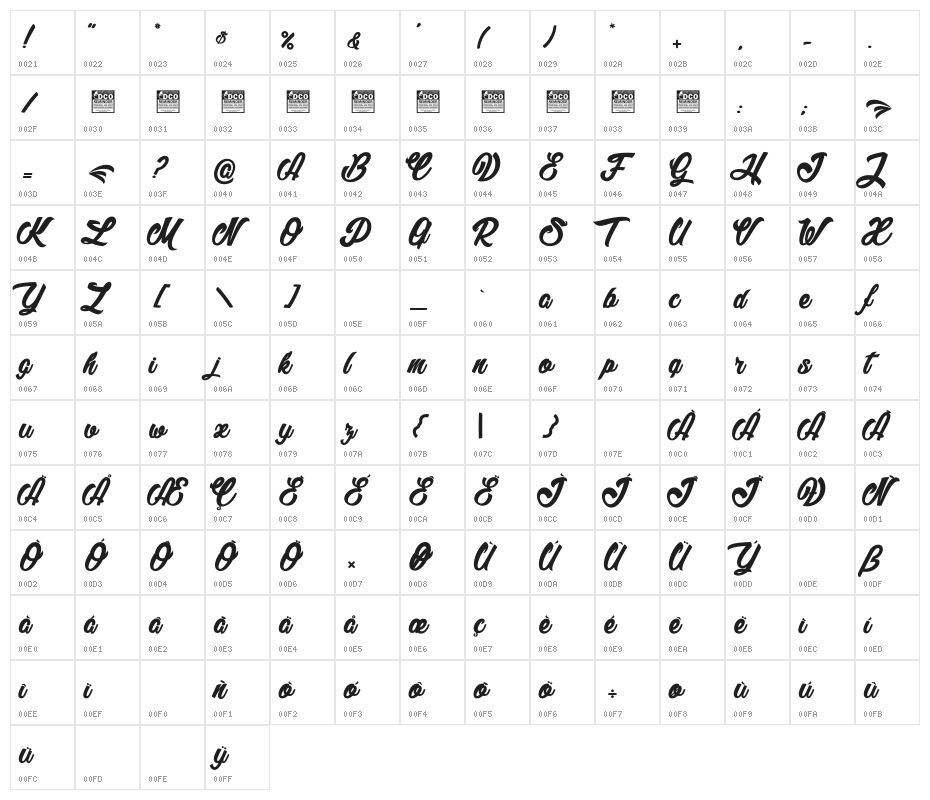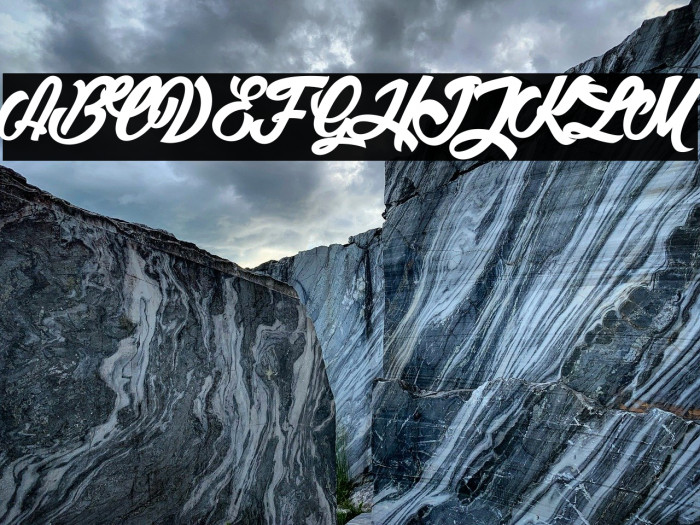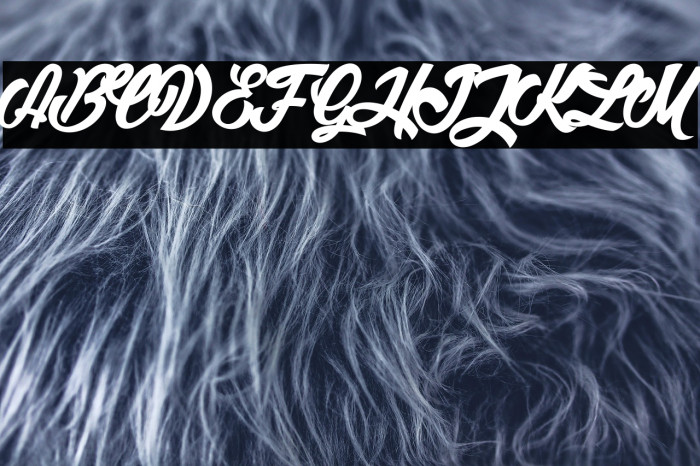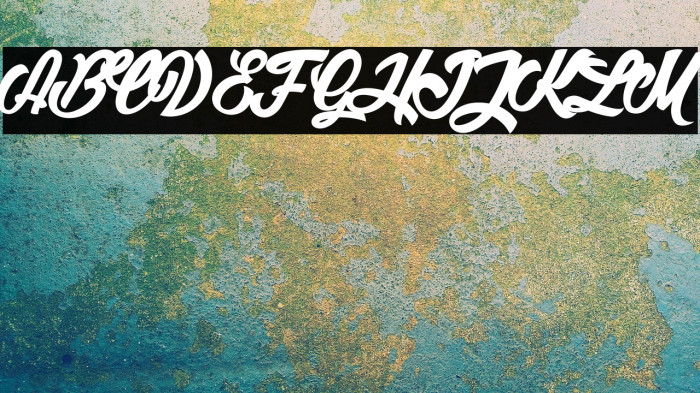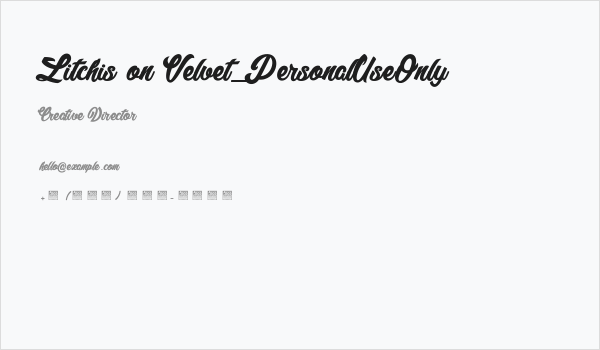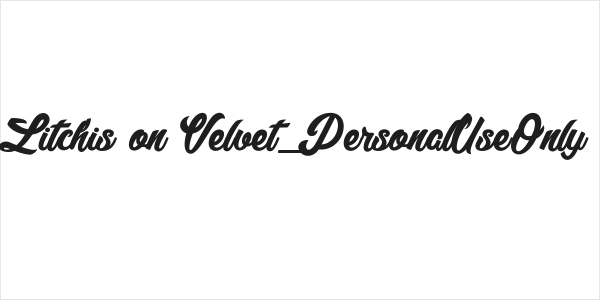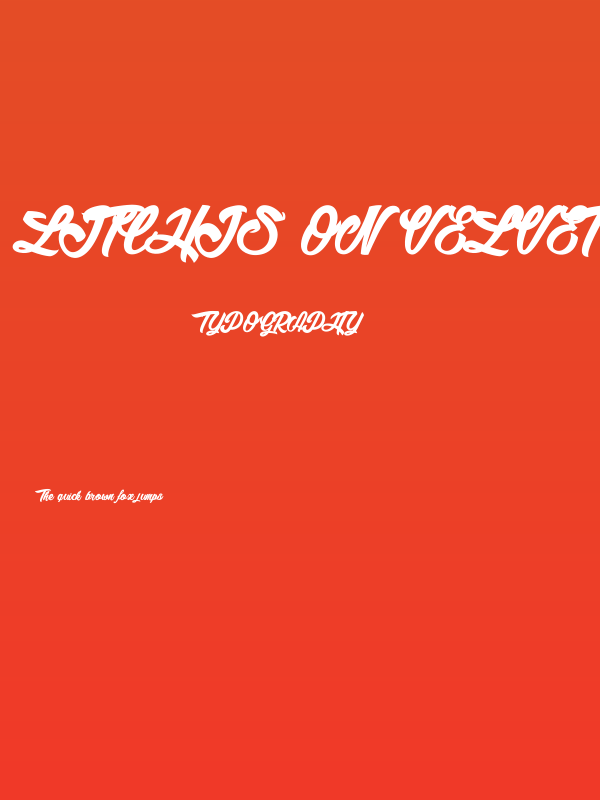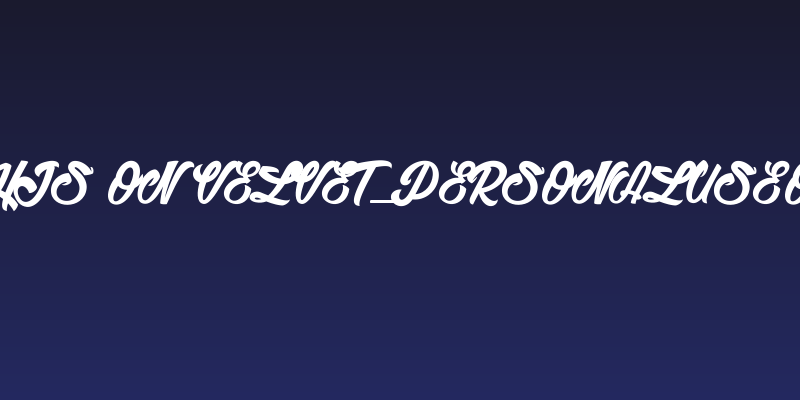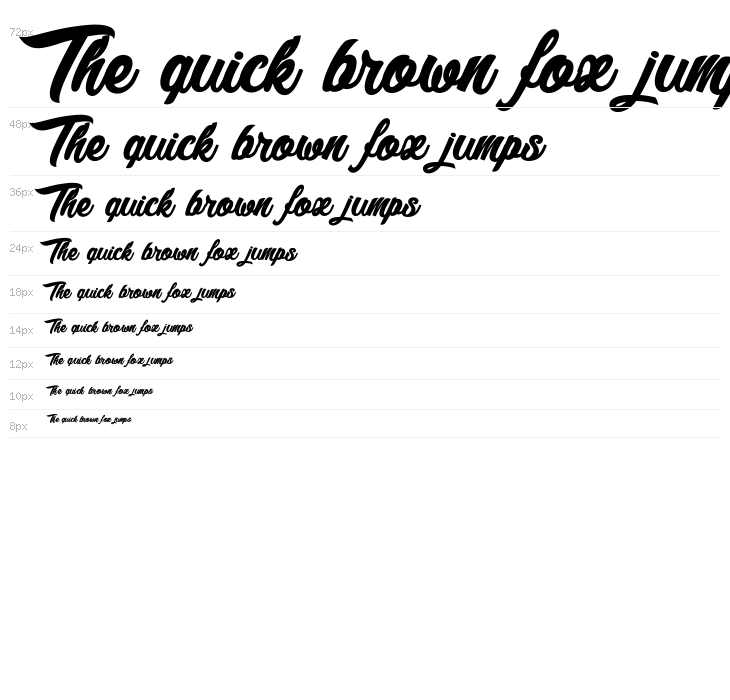
Litchis on Velvet_PersonalUseOnly Font
Litchis on Velvet_PersonalUseOnly Description
This font features a bold and expressive script style, characterized by its flowing, cursive letterforms that convey a sense of elegance and dynamism. The uppercase letters are particularly striking, with sweeping curves and intricate details that add a touch of sophistication. The lowercase letters maintain a consistent style, offering a harmonious balance with the uppercase set. The numbers and special characters are designed to complement the overall aesthetic, ensuring versatility in various design contexts. The font's bold weight and high contrast between thick and thin strokes enhance its readability while maintaining its decorative appeal.